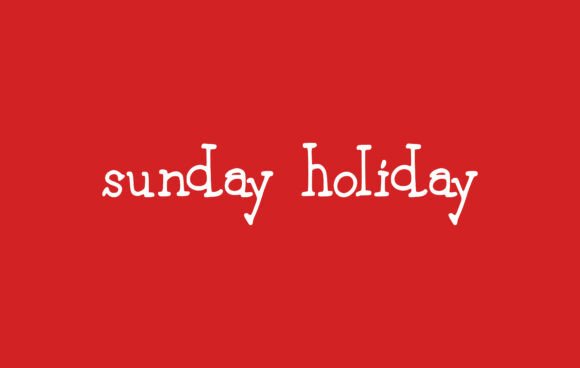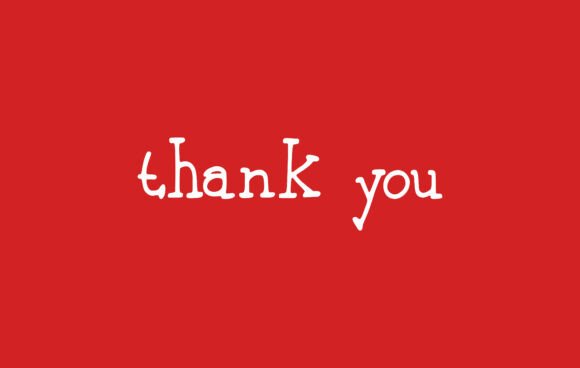
Introduction to Silken Edge Font
As a designer, you’ve probably been there – staring at a blank canvas, trying to bring a creative project to life. But sometimes, all it takes is the right font to spark inspiration. That’s where Silken Edge Font comes in – a beautifully crafted, authentic handwritten font that’s sure to elevate your designs.
With its romantic touch and high-quality design, Silken Edge Font is the perfect addition to any creative project. Whether you’re working on a magazine headline, social media post, or wedding invitation, this versatile font is sure to impress. And the best part? It’s available for free download, making it a valuable resource for designers on a budget.
As a design resource, Silken Edge Font offers a transparent background, allowing you to easily customize and layer it with other design elements. Its legibility and beauty make it a standout choice for title or body text, and its romantic touch is sure to add a touch of sophistication to any design.
Key Features of Silken Edge Font
- Includes transparent background for seamless integration
- Designed with a unique, elegant style perfect for modern designs
- Supports a wide range of languages, making it a versatile design resource
- Perfect for use in various design applications, from logos to typography
Honest Review: Silken Edge Font
I recently had the chance to try out the Silken Edge Font, and I must say it’s been a great addition to my design resource collection. The free download was a pleasant surprise, and the high quality is evident from the moment you start using it.
- ✨ Beautiful Script**: The Silken Edge Font features a stunning, handwritten script that’s perfect for adding a personal touch to your creative project.
- ✨ Transparent Background**: The font’s transparent background makes it easy to customize and integrate into your design without any hassle.
- ⚠️ Limited Font Variations**: While the Silken Edge Font is beautiful, it’s a single style, which might limit its versatility for some designers.
- ⚠️ No Web Font Support**: Unfortunately, the Silken Edge Font doesn’t have web font support, which might make it difficult to use in online projects.
Overall, I’m impressed with the Silken Edge Font, and I think it’s a great resource for designers looking for a high-quality, free font to add some personality to their creative projects.
Tips for Getting the Most Out of Silken Edge Font
For optimal results, use Silken Edge Font on a transparent background or with a contrasting color scheme. Experiment with different font sizes and styles to add depth and visual interest to your design.
Silken Edge Font is a versatile design resource suitable for a wide range of creative projects, including graphics, presentations, and social media posts. It’s also a great choice for free download and high-quality designs.